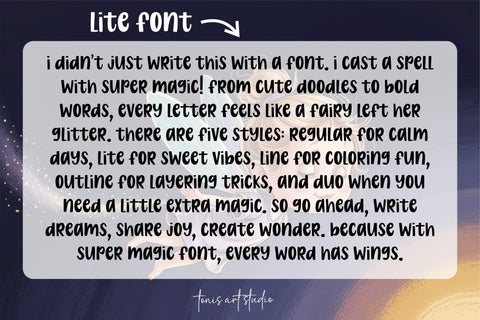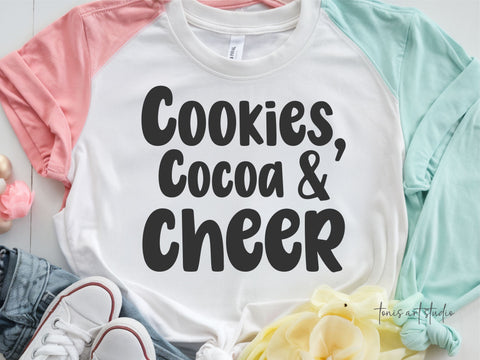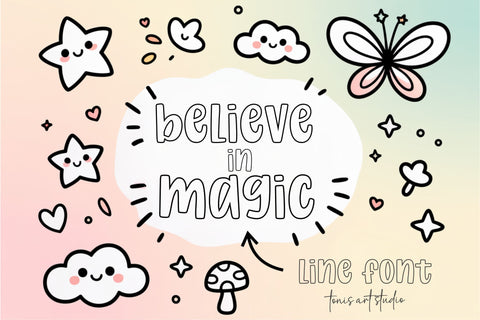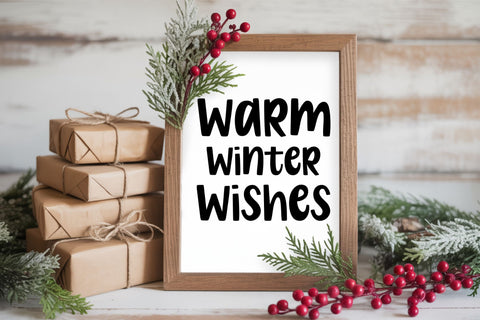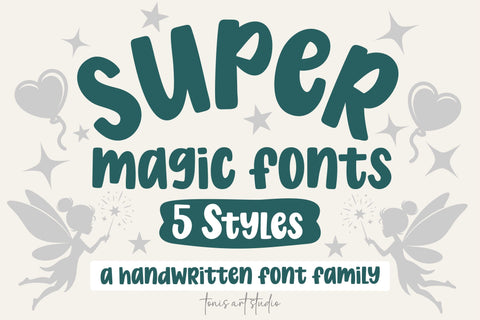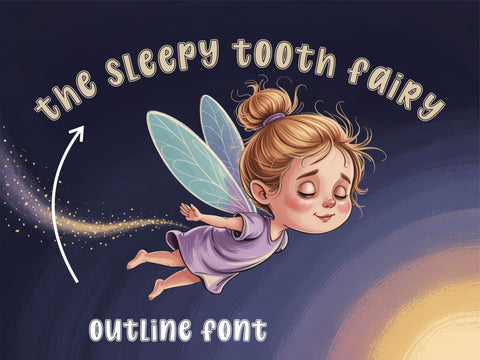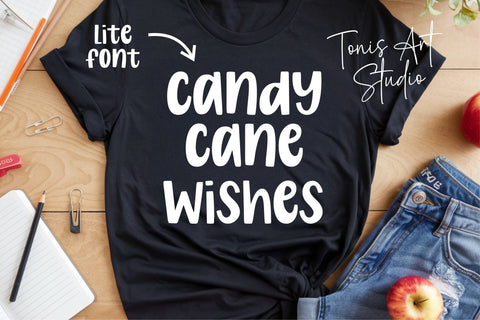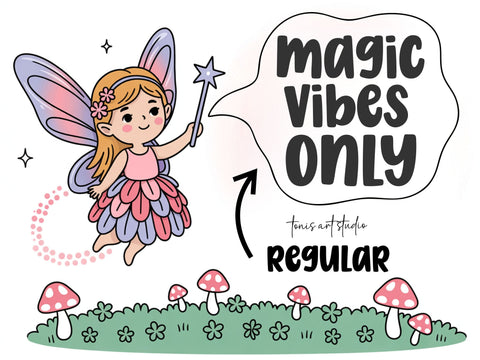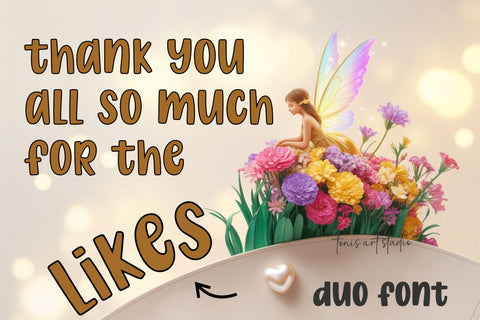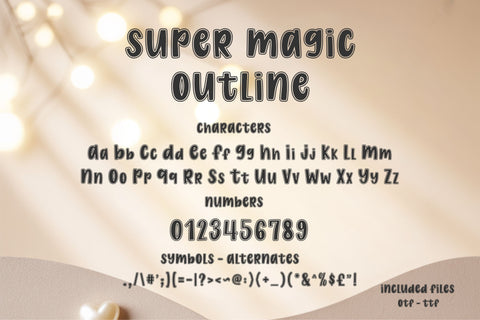
The Super Magic Font Family includes Regular, Lite, Line, Outline, and Duo, a playful handwritten display typeface designed to sprinkle charm and creativity on every project. With bubbly curves, rounded edges, and a joyful personality, this font family captures the fun and fantasy of imagination. Whether you design for kids, teachers, crafts, or cute quotes, Super Magic brings fairy-tale energy to your work.
Each style carries its own magic:
• Regular – friendly and bold for standout text
• Lite – soft and sweet for gentle designs
• Line – perfect for coloring pages and doodles
• Outline – ideal for layering and cut projects
• Duo – playful combination of solid + outline for extra impact
Perfect for stickers, t-shirt designs, classroom printables, kids parties, labels, posters, SVG crafts, planners, invitations, social media graphics, and fun lettering projects. Just type and watch the magic appear!